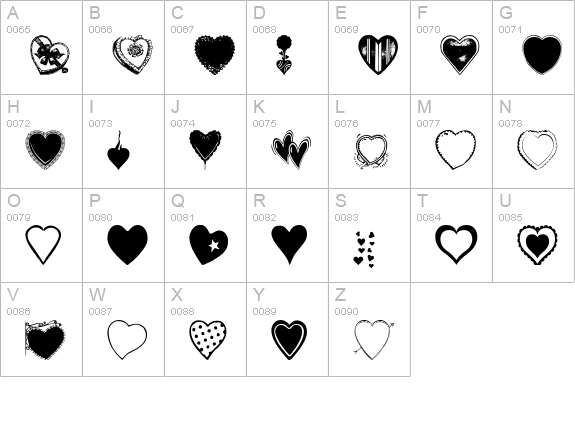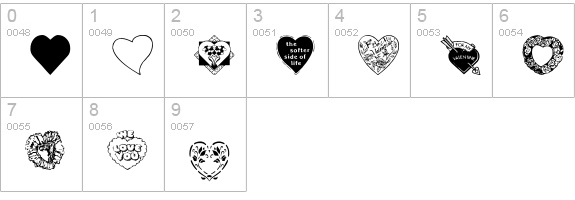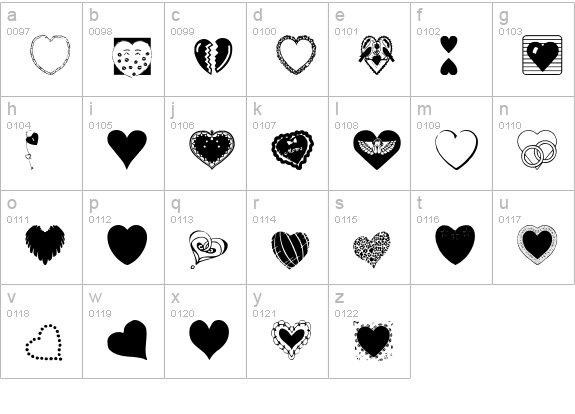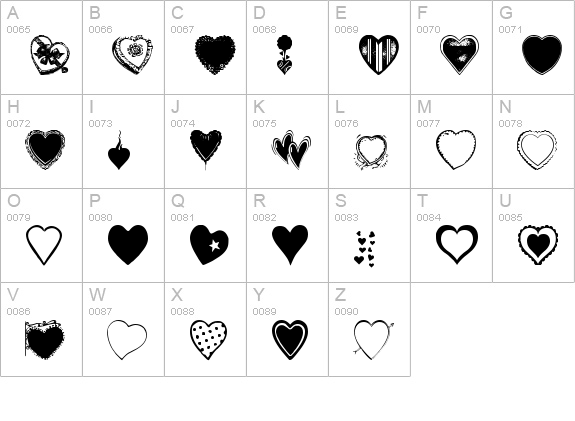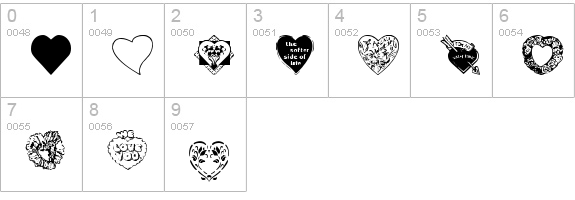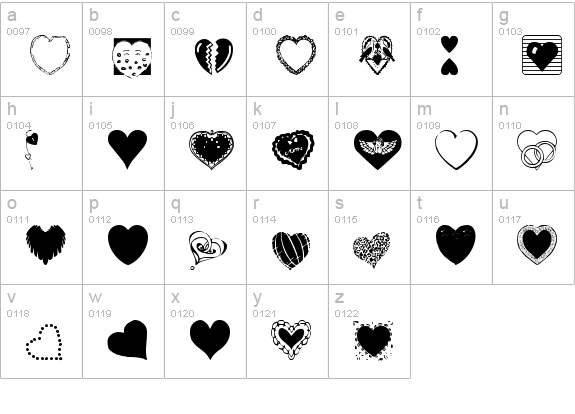
Hearts Galore Font Details
Introducing Hearts Galore font, a delightful typeface that is sure to capture hearts and add a touch of whimsy to any design project. This charming font is filled with an abundance of hearts, each one carefully crafted to bring a sense of love and joy to your creative endeavors. Hearts Galore font is perfect for adding a romantic and playful touch to wedding invitations, Valentine's Day cards, love letters, and more. Its unique and intricate design makes it stand out from the crowd, ensuring that your message gets noticed and leaves a lasting impression. But what makes Hearts Galore font even more special is that it is absolutely free. Yes, you read that right! This beautiful typeface can be freely downloaded at FontsMarket.com, allowing you to add a dash of love to your designs without breaking the bank. Whether you're a professional designer or a DIY enthusiast, this font is a must-have for your collection. With its versatile and eye-catching style, Hearts Galore font can be used in a variety of projects. From social media graphics to posters, logos, and beyond, the possibilities are endless. Its elegant curves and intricate details make it a standout choice for any design that needs a touch of romance. So why wait? Download Hearts Galore font today and infuse your designs with love and charm. Let your creativity soar as you explore the endless possibilities that this font has to offer. Remember, it's free and readily available at FontsMarket.com. Spread the love with Hearts Galore font and watch your designs come to life.